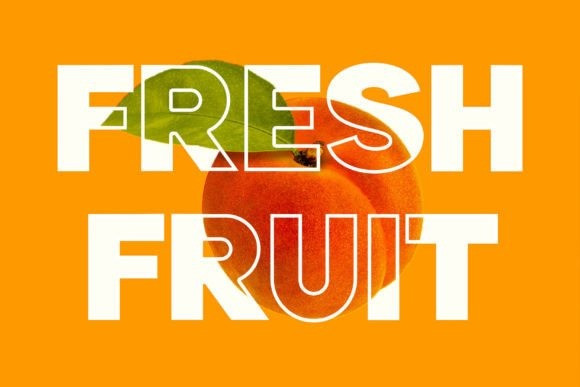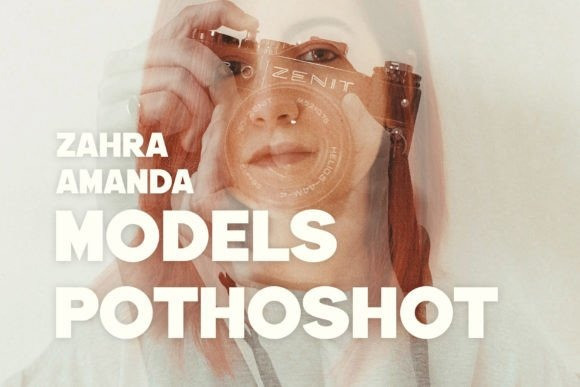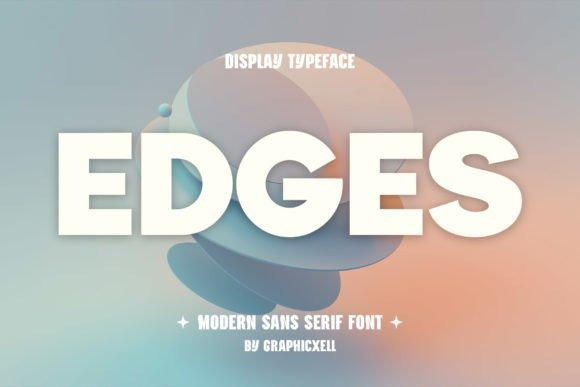
Edges Font
Edges Font, Inspired by the famous minimalist logo, Edges is perfect for the purposes of designing templates, brochures, videos, advertising branding, logos, invitation, layout design, elegant crafting, beauty design and so much more.